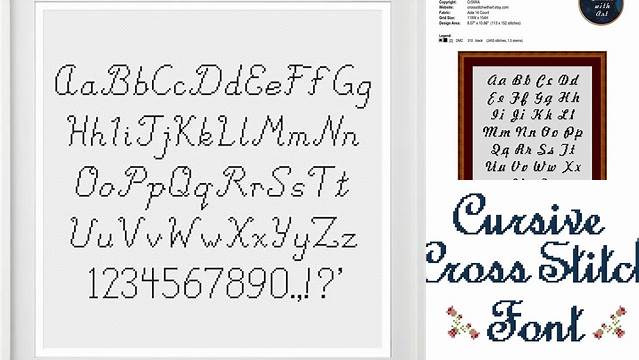
Free Cursive Cross Stitch Font PDFs: A Complete Guide
Are you a cross-stitch enthusiast looking to add a touch of elegance and personalization to your projects? Cursive cross stitch fonts are the perfect way to do just that! In this comprehensive guide, we'll delve into the world of cursive fonts for cross-stitch, explore the benefits of using them, and provide you with valuable resources, including free PDF patterns, to get you started. Whether you're a beginner or an experienced stitcher, this guide will equip you with the knowledge and inspiration to create beautiful, customized cross-stitch pieces.
What are Cursive Cross Stitch Fonts?
So, what exactly are cursive cross stitch fonts, guys? Well, imagine the flowing, connected letters you'd write with a pen, but translated into the language of cross-stitch. These fonts mimic the elegant loops and swirls of handwriting, adding a sophisticated and personal touch to your cross-stitch projects. Unlike blocky, traditional cross-stitch lettering, cursive fonts offer a more fluid and graceful aesthetic. They're perfect for adding names, quotes, monograms, or any other text to your designs. The beauty of cursive lies in its ability to convey emotion and personality, making your cross-stitch creations truly unique. Think about stitching a personalized baby blanket with a flowing cursive name, or a sampler featuring an inspiring quote in elegant script. The possibilities are endless!
When choosing a cursive font for your cross-stitch project, consider the overall style you're aiming for. Some fonts are delicate and airy, while others are bold and dramatic. The thickness of the lines, the size of the letters, and the complexity of the swirls will all contribute to the final look. Also, think about the fabric you're using and the size of your Aida cloth. A more intricate font might require a larger Aida count to ensure that the details are clear and legible. Don't be afraid to experiment with different fonts and sizes to find the perfect match for your project. Remember, the goal is to create something beautiful and personal, so have fun with it! You can find a wide variety of cursive cross stitch fonts available online, both free and paid. Many websites offer downloadable PDF patterns that you can print out and use as a guide. These patterns typically include a chart showing the placement of each stitch, as well as a color key indicating the DMC floss colors to use. With a little practice and patience, you'll be stitching beautiful cursive lettering in no time!
Why Use Cursive Fonts in Cross Stitch?
There are numerous reasons why you might choose cursive fonts in cross stitch. Firstly, they add an element of elegance and sophistication to your projects. The flowing lines and graceful curves of cursive script create a visually appealing contrast to the structured grid of the cross-stitch fabric. This makes your finished piece look more refined and artistic. Imagine a delicate floral design paired with a flowing cursive quote – the combination is simply stunning!
Secondly, cursive fonts allow for a high degree of personalization. You can use them to stitch names, dates, initials, or meaningful quotes, making your cross-stitch projects truly unique and sentimental. A handmade gift featuring a loved one's name in cursive is sure to be treasured for years to come. Think about creating personalized wedding gifts, birth announcements, or anniversary samplers. The ability to add a personal touch is one of the biggest advantages of using cursive fonts. Furthermore, cursive fonts can evoke a sense of nostalgia and tradition. The style of handwriting often harkens back to older times, adding a vintage or classic feel to your work. This can be particularly appealing if you're creating heirloom pieces or projects with a historical theme. A sampler stitched in a traditional cursive font can become a cherished family keepsake, passed down through generations. Beyond aesthetics, using cursive fonts can also be a creative challenge. The intricate loops and curves require a different approach to stitching compared to block letters. This can help you develop your skills and push your creativity. It's a fun way to expand your cross-stitch repertoire and try something new. Plus, the satisfaction of completing a beautifully stitched cursive word or phrase is incredibly rewarding. So, if you're looking to add elegance, personalization, and a touch of nostalgia to your cross-stitch projects, cursive fonts are definitely the way to go. They offer a world of creative possibilities, and with the abundance of free resources available, there's no reason not to give them a try!
Finding Free Cursive Cross Stitch Font PDFs
Okay, so you're convinced that cursive cross stitch fonts are awesome, but where do you actually find these free PDF treasures? Don't worry, guys, the internet is bursting with resources! The key is knowing where to look and how to sift through the options. Let's explore some of the best places to find free cursive font patterns for your next cross-stitch adventure.
One of the most obvious places to start is online cross-stitch communities and forums. Websites dedicated to cross-stitch often have sections where members share their own patterns, including cursive fonts. These patterns are usually free to download and use, and you can often find a wide variety of styles and sizes. Participating in these communities can also be a great way to get feedback and inspiration from other stitchers. Plus, if you're feeling generous, you can even share your own patterns! Another excellent resource is free pattern websites. Many websites specialize in offering free cross-stitch patterns, and they often have a dedicated category for alphabets and fonts. These sites may have a mix of cursive and block fonts, so you'll need to browse through the selection to find what you're looking for. However, they often have a large and diverse collection, making it a great place to start your search. When searching for free patterns, it's essential to pay attention to the copyright and usage terms. Most free patterns are for personal use only, meaning you can't sell finished products made from them. If you're planning to sell your cross-stitch creations, you'll need to look for patterns that have commercial usage rights. Another option is to create your own cursive cross-stitch fonts. This might sound intimidating, but it's actually quite achievable with the help of online cross-stitch pattern generators. These tools allow you to upload an image of a cursive font or even type in text directly, and the generator will create a cross-stitch chart for you. This gives you complete control over the font style and size, and it's a great way to create truly unique designs. Don't forget to check out Pinterest and other social media platforms. Many cross-stitch designers and enthusiasts share their free patterns on social media, often linking to downloadable PDFs. Searching for relevant hashtags like #crossstitchfont, #freecrossstitchpattern, or #cursivecrossstitch can lead you to some hidden gems. Finally, consider subscribing to cross-stitch newsletters. Many designers and websites offer free patterns to their subscribers as a way to build their email list. This can be a great way to receive regular updates on new free fonts and patterns, delivered straight to your inbox. With a little searching and exploring, you'll be amazed at the wealth of free cursive cross-stitch fonts available online. So, get ready to download some patterns and start stitching!
Tips for Using Cursive Fonts in Cross Stitch
Now that you've found your perfect free cursive cross stitch font PDF, let's talk about some tips to make your stitching experience smooth and your final product stunning. Working with cursive fonts in cross-stitch can be a little different than working with block letters, so here are a few things to keep in mind.
First and foremost, choose the right fabric and Aida count. Cursive fonts, with their intricate curves and delicate lines, often require a higher Aida count than simpler designs. This means more stitches per inch, resulting in a finer and more detailed finished product. If you try to stitch a complex cursive font on a low Aida count fabric, the letters might look crowded and the curves might not be as smooth. Experiment with different Aida counts to find the best balance for your chosen font and design. A higher Aida count will generally produce a sharper image, but it will also take more time and require more precision. Another crucial tip is to plan your layout carefully. Before you start stitching, take the time to map out the placement of your cursive text within your overall design. Consider the spacing between letters and words, as well as the alignment of the text with other elements in your piece. Using a grid or a piece of waste canvas can be helpful for ensuring accurate placement. A well-planned layout will make your finished project look polished and professional. When stitching cursive fonts, pay close attention to the curves and connections. The beauty of cursive lies in its flowing lines, so it's important to maintain that fluidity in your stitching. Use consistent tension to avoid puckering or distortion, and be mindful of the direction of your stitches. Taking your time and focusing on the details will result in smoother, more graceful letters. Don't be afraid to use backstitch for added definition. Backstitch can be a great way to outline your cursive letters and make them stand out against the background fabric. It can also help to smooth out any slightly jagged edges or curves. Choose a color that complements your floss colors and add a subtle yet impactful finishing touch. Speaking of floss colors, consider the color palette of your overall design. The color of your cursive text should harmonize with the other colors in your piece. You might choose a contrasting color to make the text pop, or a more muted tone for a subtle and elegant effect. Experiment with different color combinations to find what works best for your project. Finally, don't be afraid to practice! Stitching cursive fonts can take some getting used to, so don't be discouraged if your first attempts aren't perfect. The more you practice, the more comfortable and confident you'll become. Start with simpler fonts and gradually work your way up to more complex designs. With patience and perseverance, you'll be creating beautiful cursive cross-stitch pieces in no time.
Project Ideas Using Cursive Cross Stitch Fonts
Now that you're armed with the knowledge and resources, let's spark some creativity! What kinds of projects can you create using cursive cross stitch fonts? The possibilities are truly endless, but here are a few ideas to get your creative juices flowing.
Personalized Gifts are always a hit, and cursive fonts add that extra special touch. Think about stitching a baby blanket with the child's name in elegant script, or a wedding sampler featuring the couple's initials and wedding date. Monogrammed towels, pillowcases, and tote bags are also great options. A handmade gift with a personal touch is sure to be treasured for years to come. Another fantastic idea is to create inspirational wall art. Stitch a favorite quote or saying in cursive and frame it for a beautiful and meaningful piece of decor. Choose a font and floss colors that complement your home's style, and create a unique piece that reflects your personality. This is a great way to add a personal touch to your living space. You could also consider making holiday ornaments or decorations. Stitch festive words or phrases in cursive and hang them on your Christmas tree, or create a banner with a seasonal greeting. Cursive fonts add a touch of elegance and sophistication to your holiday décor. Think about stitching a set of personalized Christmas stockings with each family member's name in cursive. Home décor items like throw pillows and cushions also lend themselves beautifully to cursive stitching. Stitch a monogram or a meaningful word on a pillow to add a personalized touch to your living room or bedroom. You could even create a set of matching pillows with different cursive words or phrases. If you're a fan of vintage or antique styles, cursive fonts are a perfect match. Stitch a sampler in a traditional cursive font and frame it for a classic and timeless piece of art. This is a great way to create heirloom pieces that can be passed down through generations. Finally, consider using cursive fonts in scrapbooking or card making. Add a personal touch to your scrapbook pages or greeting cards by stitching names, dates, or quotes in cursive. This is a great way to add texture and dimension to your paper crafts. No matter what project you choose, cursive cross-stitch fonts are a wonderful way to add elegance, personalization, and a touch of creativity. So, grab your needle and floss, and let your imagination run wild!
In conclusion, cursive cross stitch fonts offer a fantastic way to elevate your cross-stitch projects. They add a touch of elegance, allow for personalization, and open up a world of creative possibilities. With the abundance of free PDF patterns available online, there's no reason not to explore the beauty of cursive in your stitching. Remember to choose the right fabric and Aida count, plan your layout carefully, and pay attention to the curves and connections. With a little practice and patience, you'll be creating stunning cursive cross-stitch pieces in no time. So, grab your supplies, find a font you love, and start stitching! Happy crafting, guys!